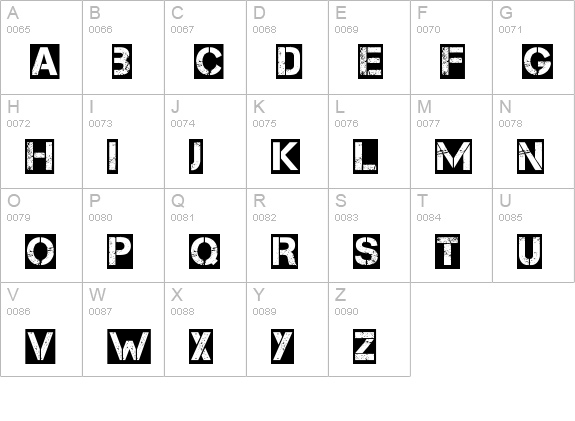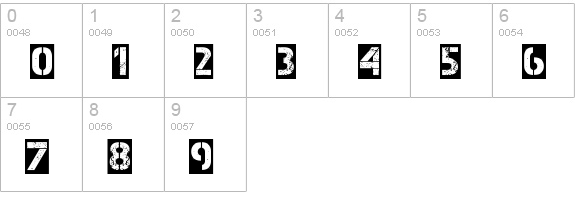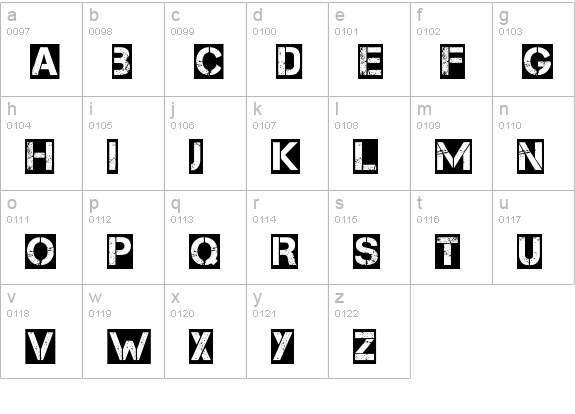
Capture it Font Details
Capture it font is a visually striking and modern typeface that is sure to make your designs stand out. With its bold and edgy look, this font is perfect for creating eye-catching headlines, posters, and logos. The sharp angles and clean lines of Capture it font give it a contemporary and dynamic feel that will grab the attention of your audience. The best part about Capture it font is that it is completely free to download at FontsMarket.com. This means that you can add this stylish and versatile font to your design arsenal without having to spend a dime. Whether you are a professional graphic designer or just starting out, Capture it font is a valuable addition to your collection of fonts. Download it today and unleash your creativity with this amazing typeface.